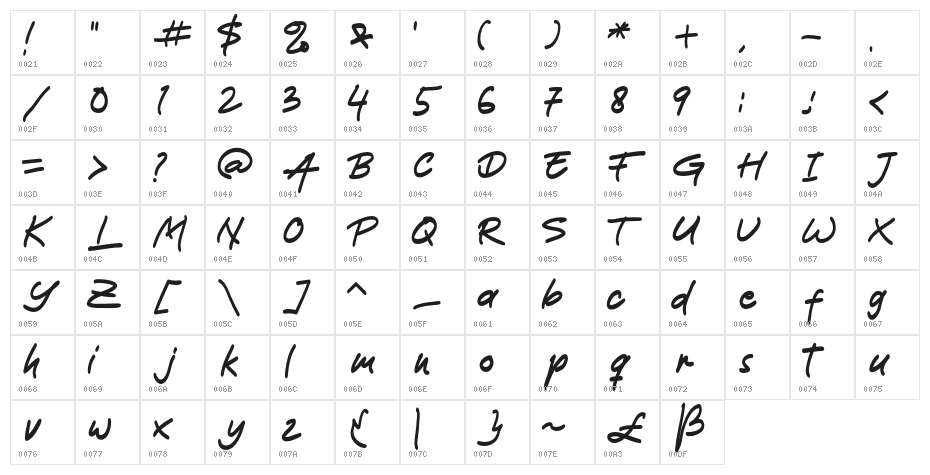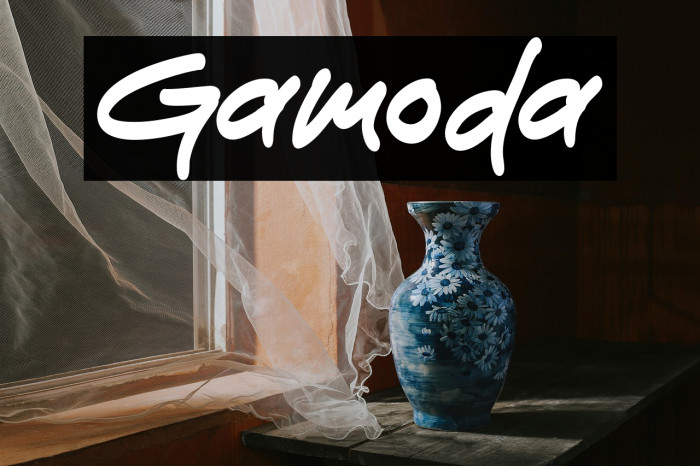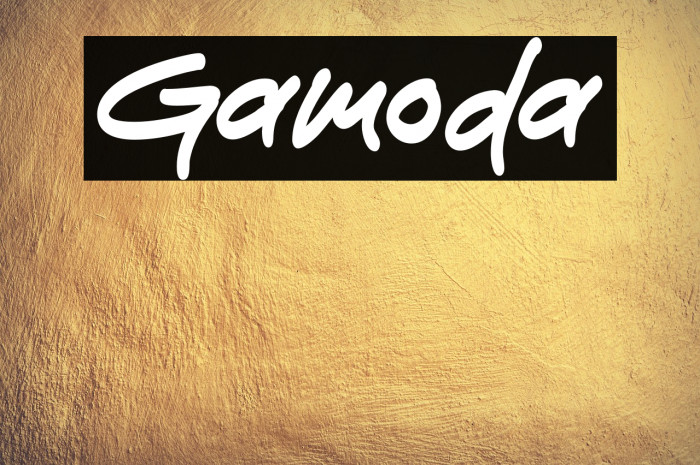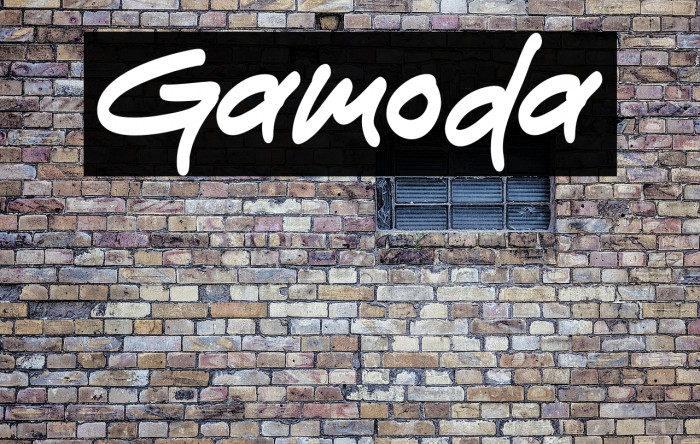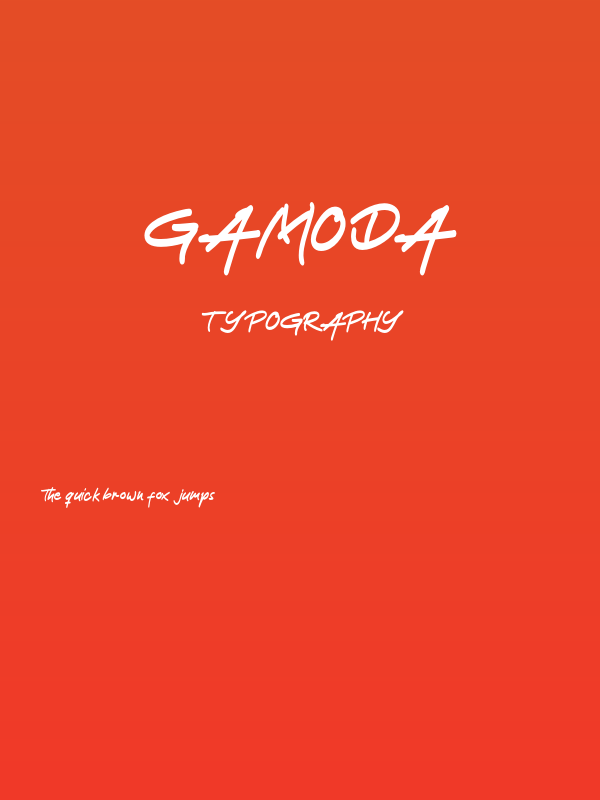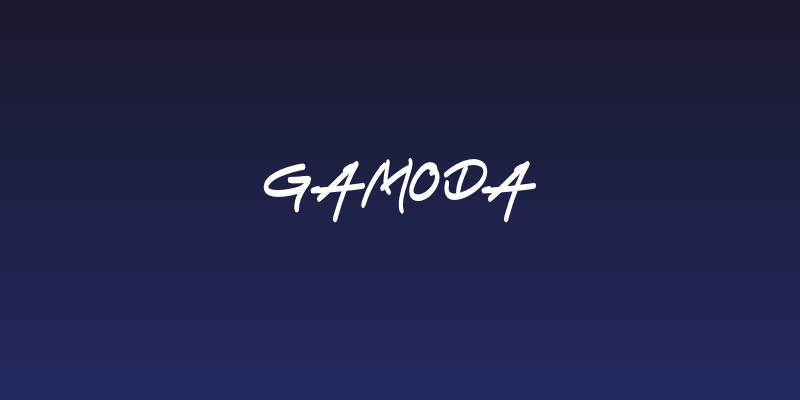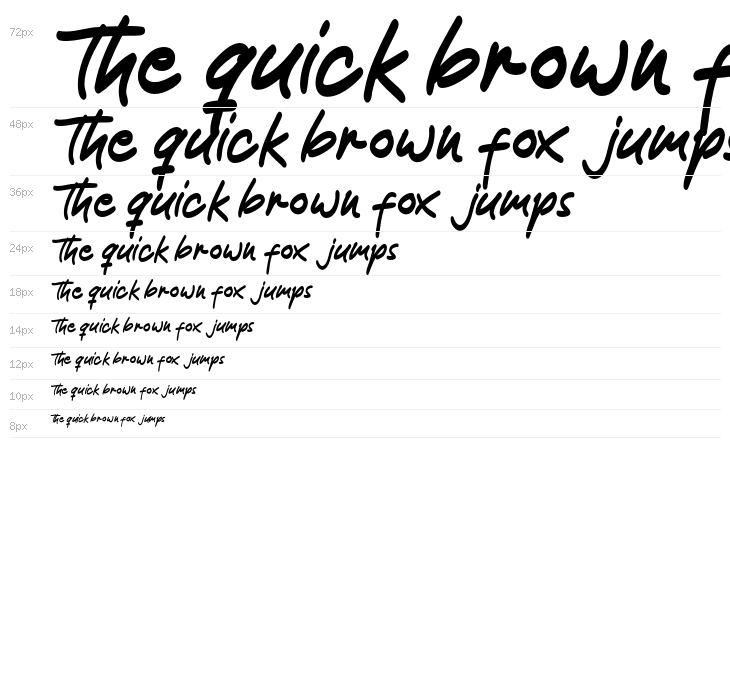
Gamoda Font
Gamoda Description
This font features a dynamic and expressive handwritten style, characterized by its fluid and natural strokes. The uppercase letters are bold and slightly slanted, giving a sense of motion and energy. The lowercase letters maintain a consistent flow, with rounded edges and a casual appearance. Numbers are bold and clear, ensuring readability. Special characters are creatively integrated, maintaining the overall aesthetic. The font's playful yet sophisticated look makes it suitable for a variety of creative projects.
| Proposed Projects | Ideal for branding, invitations, greeting cards, and creative posters. |